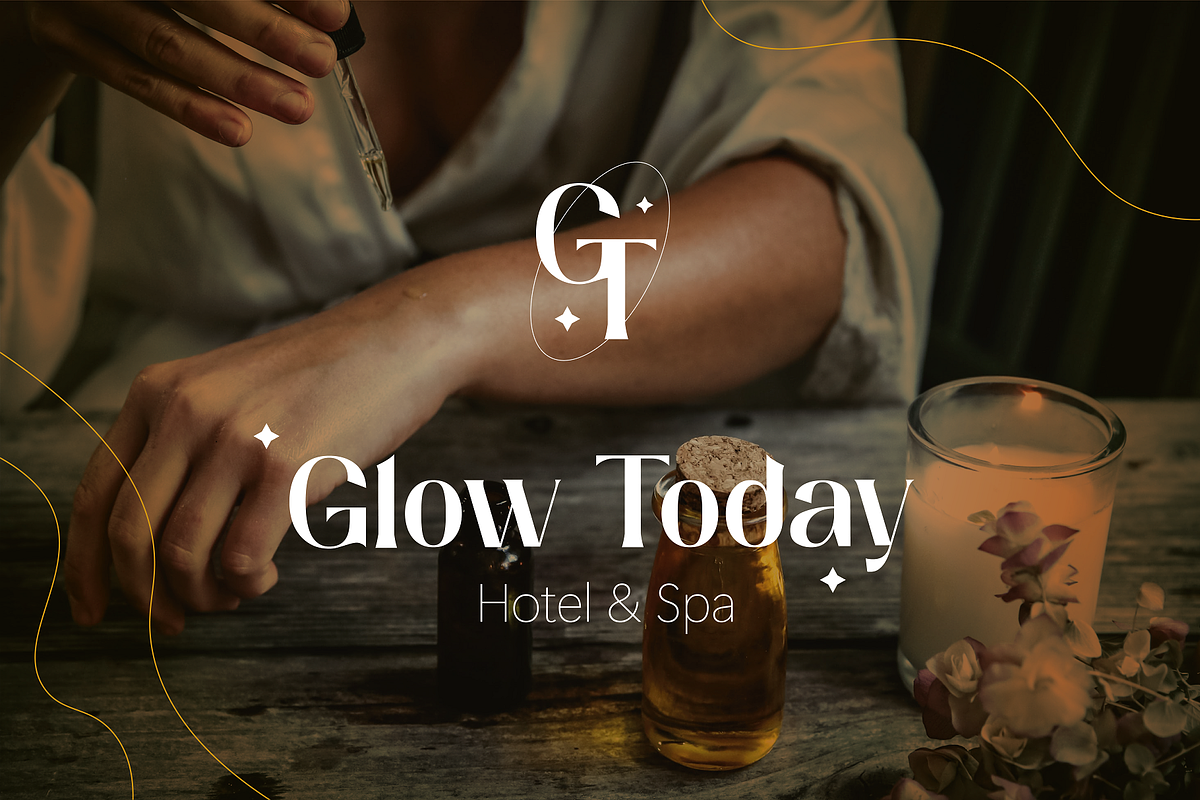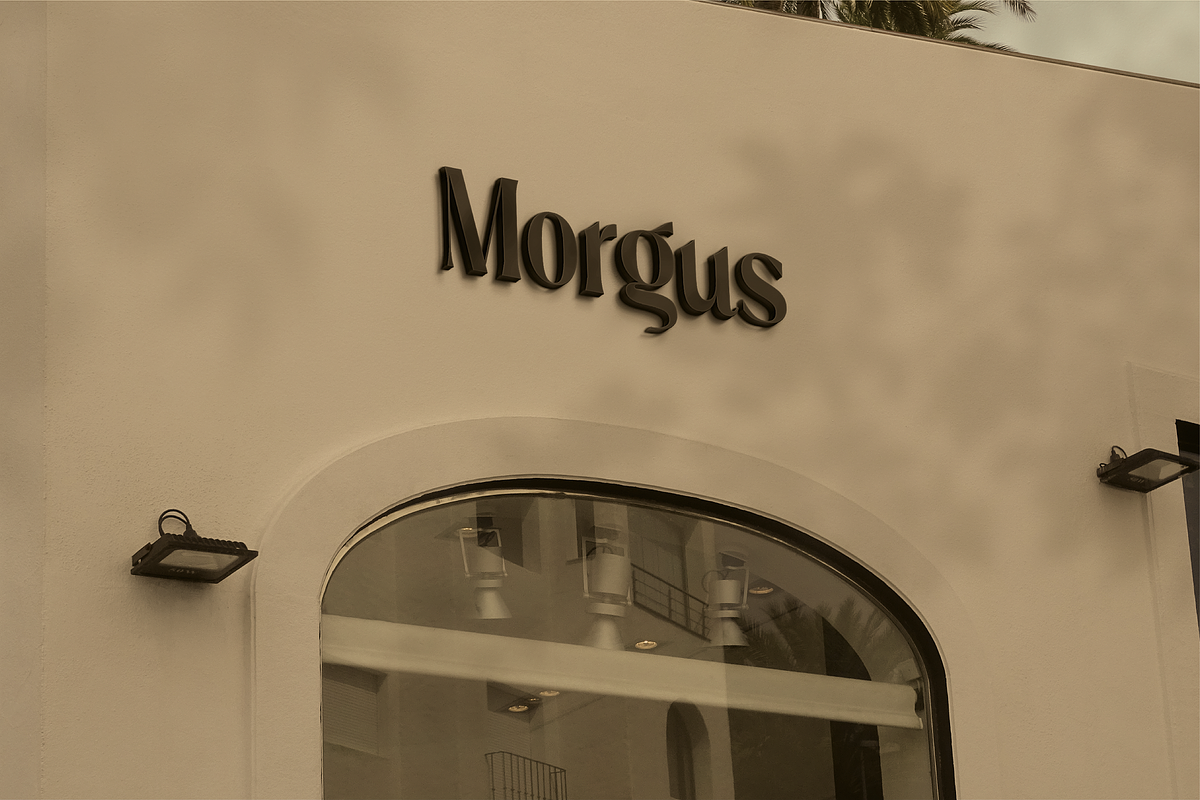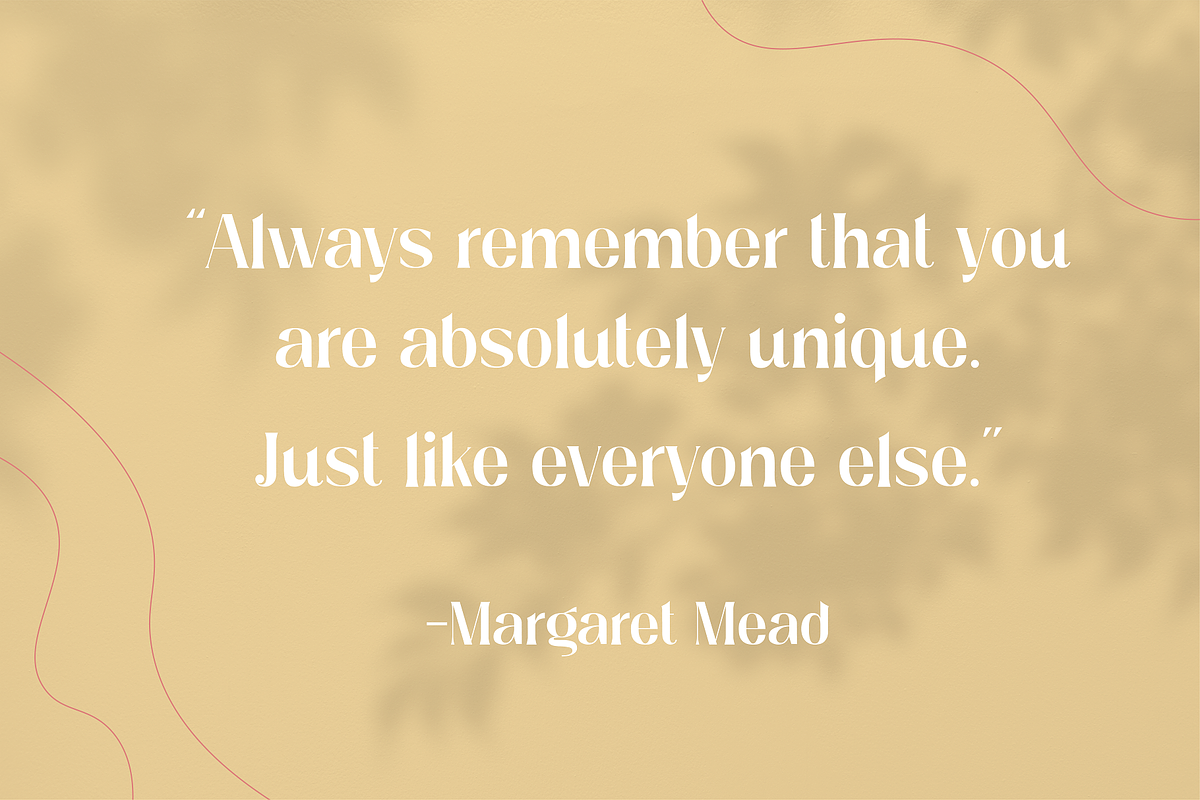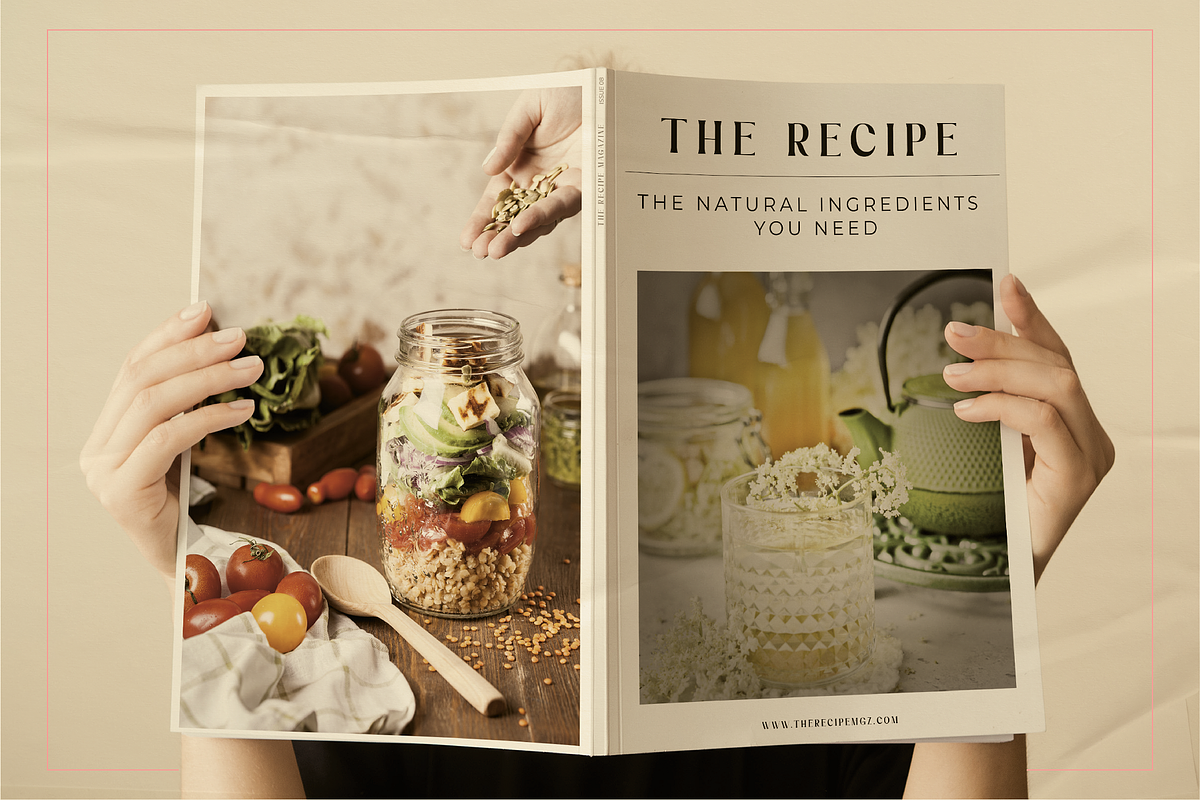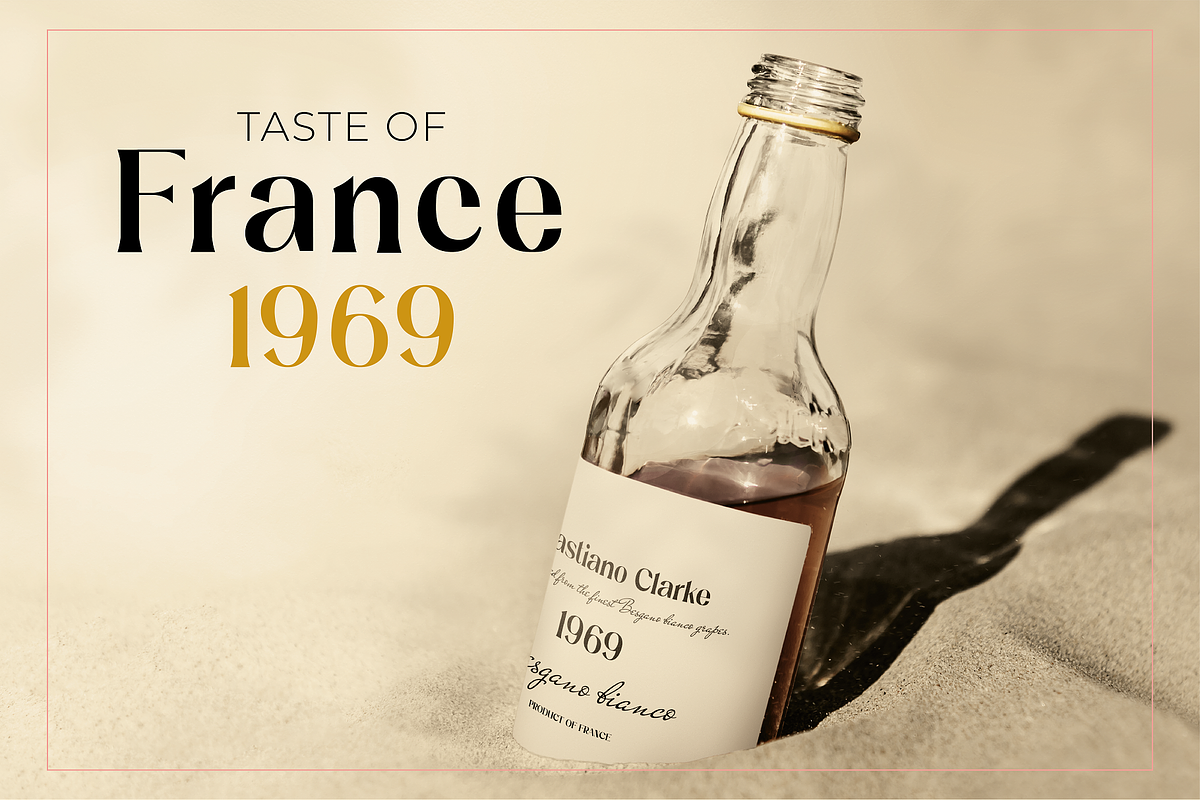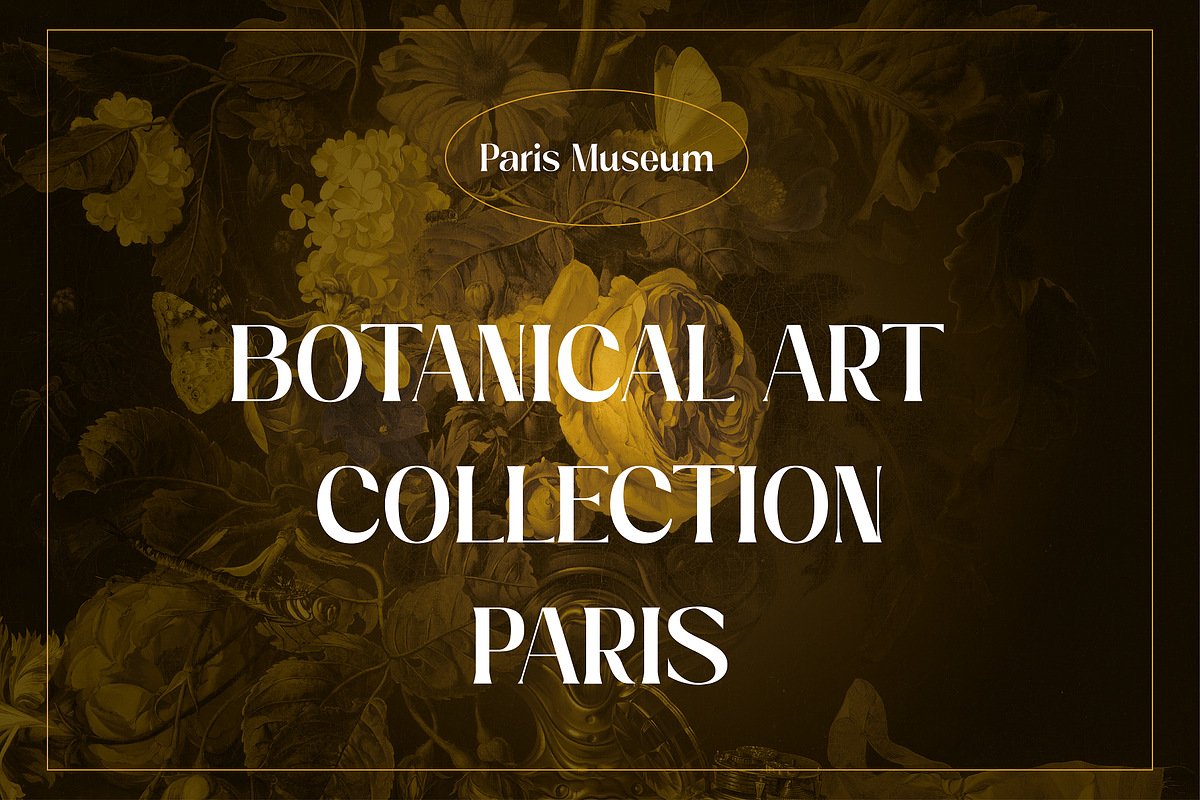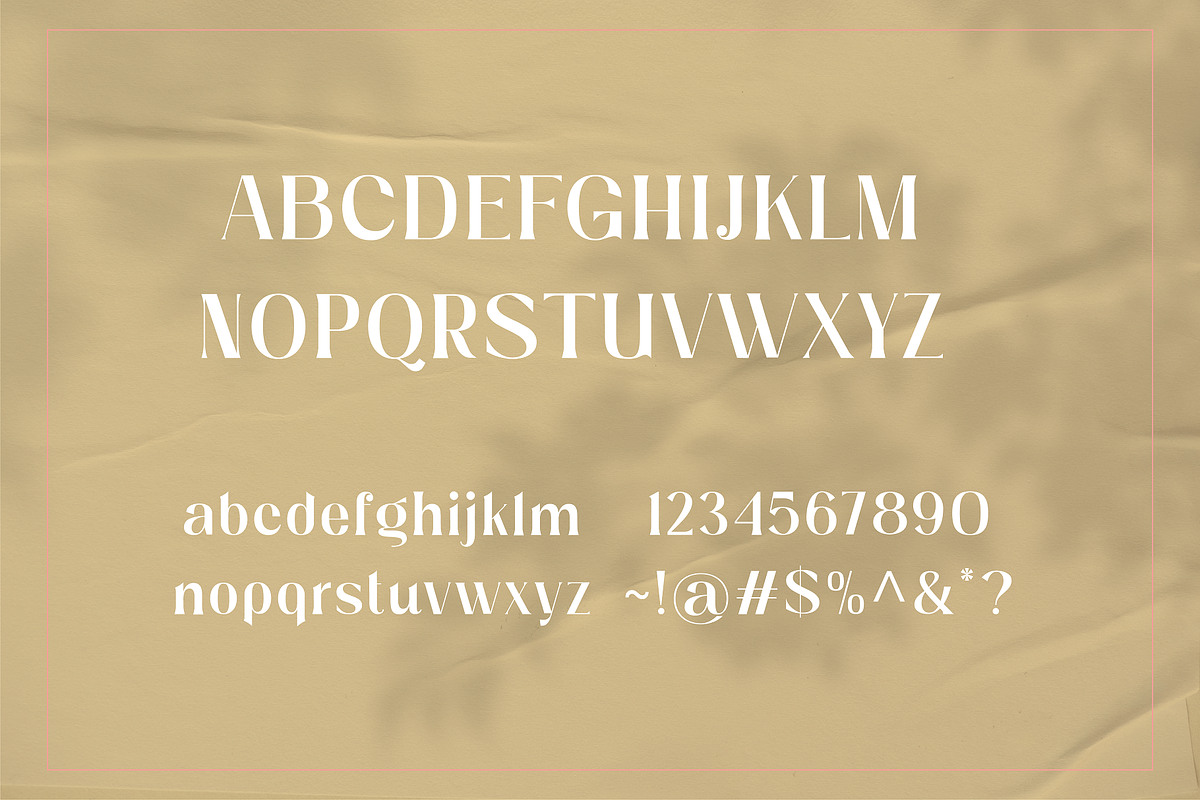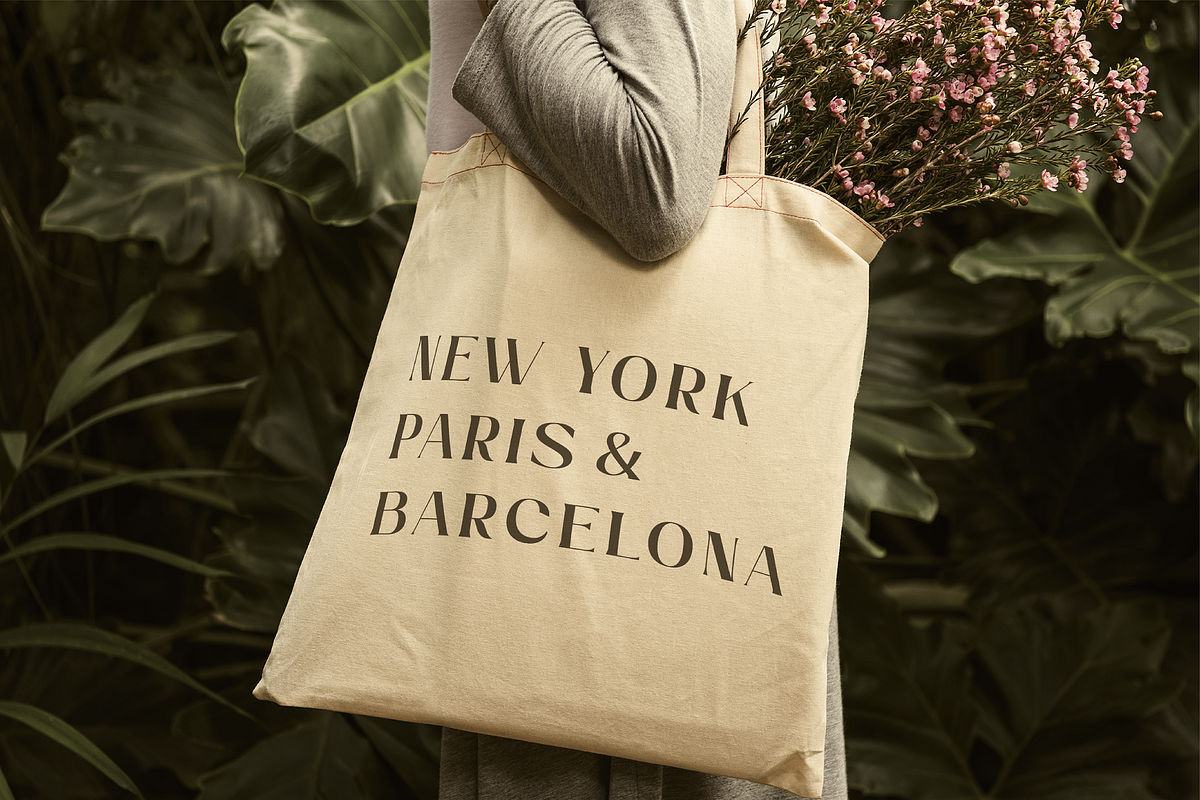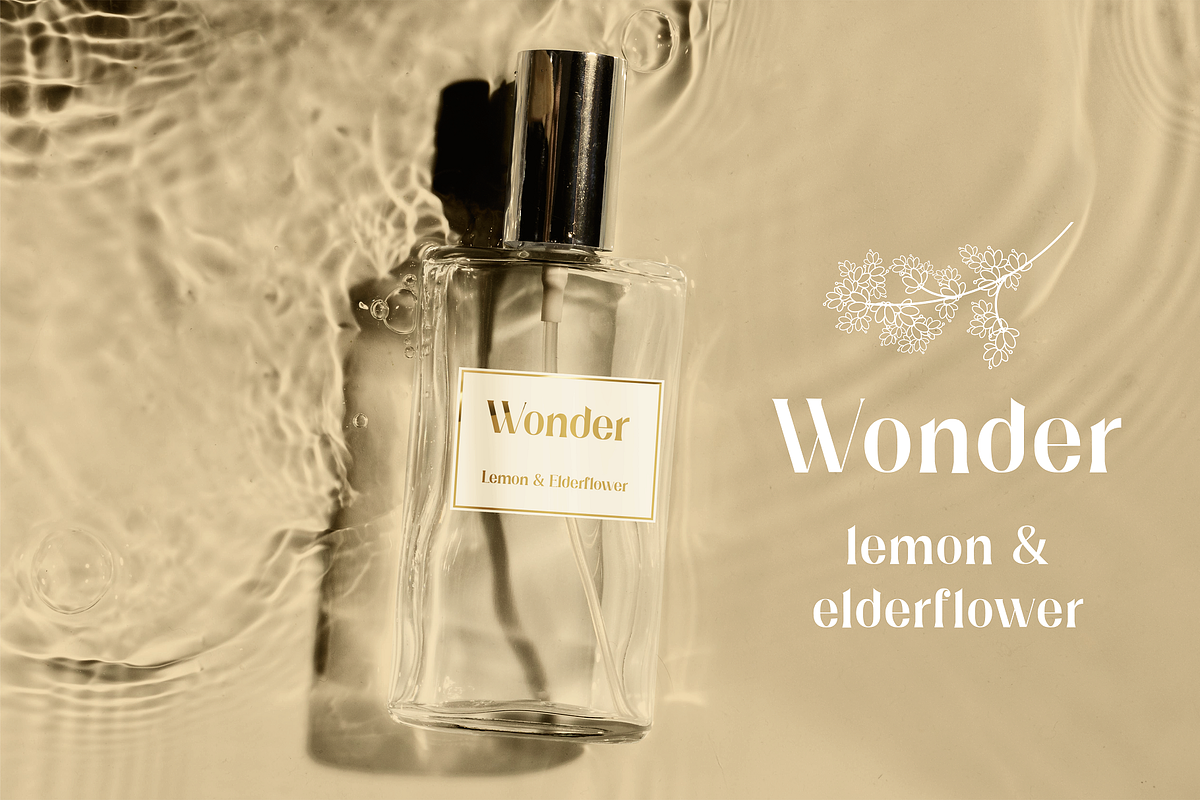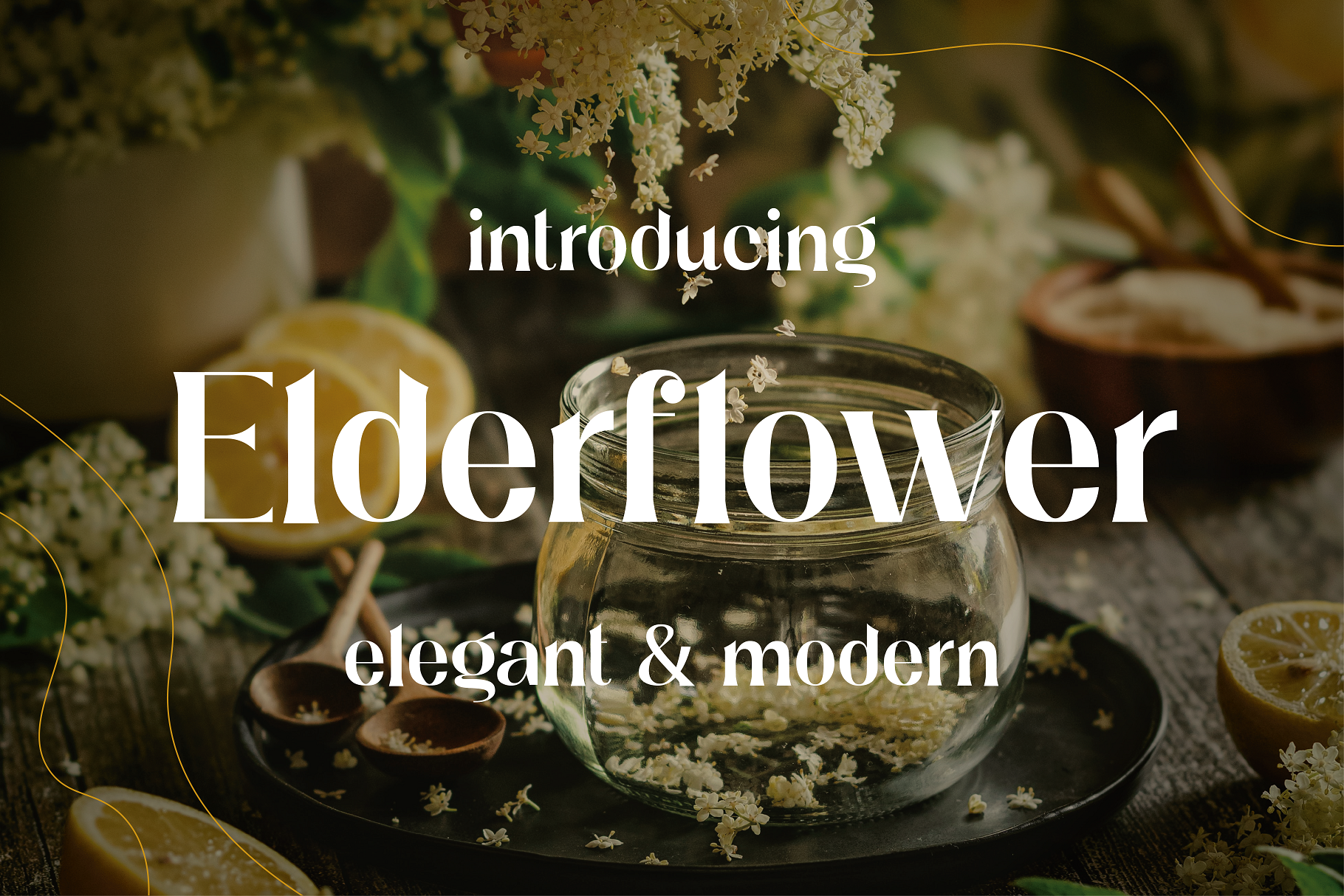
Elderflower - Elegant Typeface
Elderflower is an elegant typeface intended for modern design projects. The font includes uppercase letters, lowercase letters, numerals, a large range of punctuation. This sexy serif typeface will be perfect for poster, packaging, editorials, advertising, social media quotes, wedding branding, web design, mood boards, badges and much more.